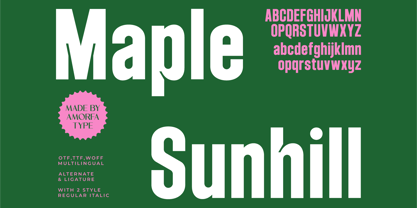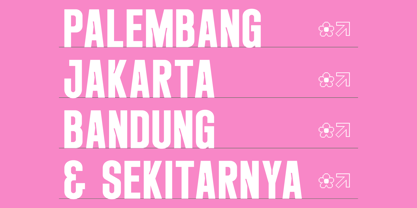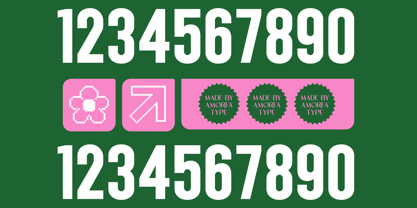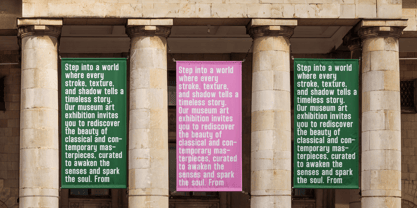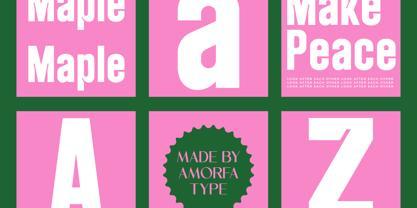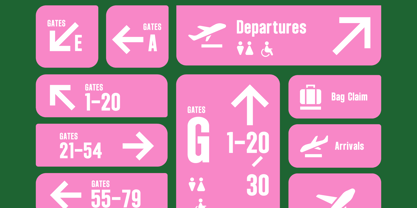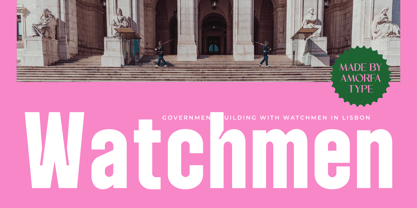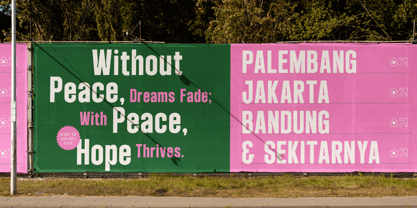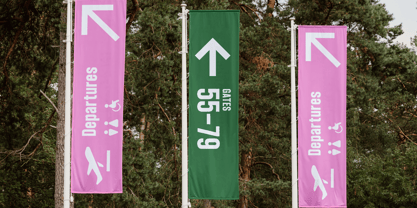
Maple Sunhill
by Amorfa Type
The Maple Sunhill Font Family was designed by Shiddiq Roihan and published by Amorfa Type. Maple Sunhill contains 2 styles and family package options.
Maple Sunhill is a clean and stylish sans display font designed to bring a modern, confident, and contemporary feel to your projects. With bold shapes, balanced proportions, and sleek letterforms, Maple Sunhill delivers clarity while maintaining a distinctive creative edge.
Perfect for logos, posters, editorial layouts, branding, and digital interfaces, this typeface makes a strong impression in both print and screen design. Its versatile character set ensures Maple Sunhill can adapt seamlessly across different creative needs, from minimalist branding to bold statement headlines.